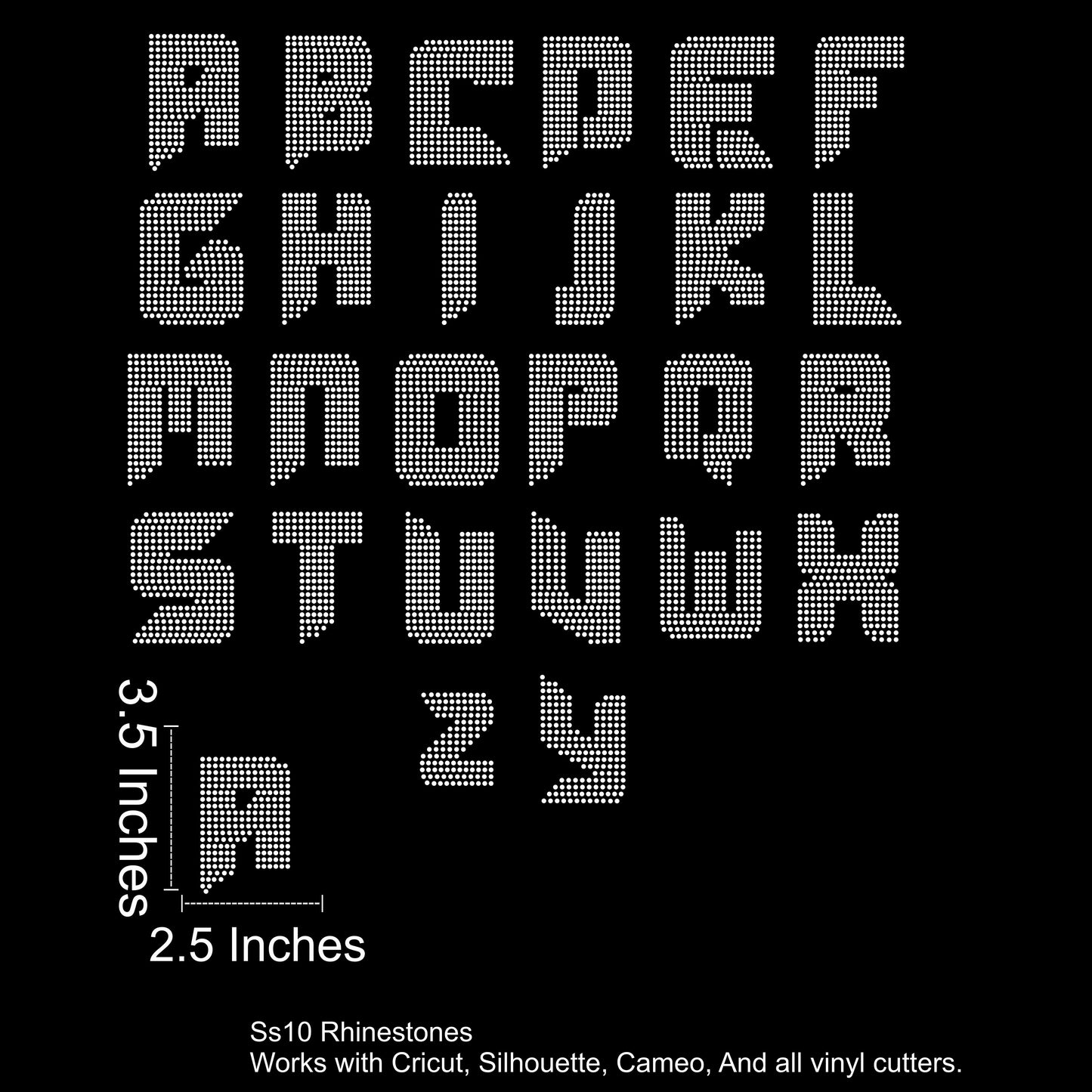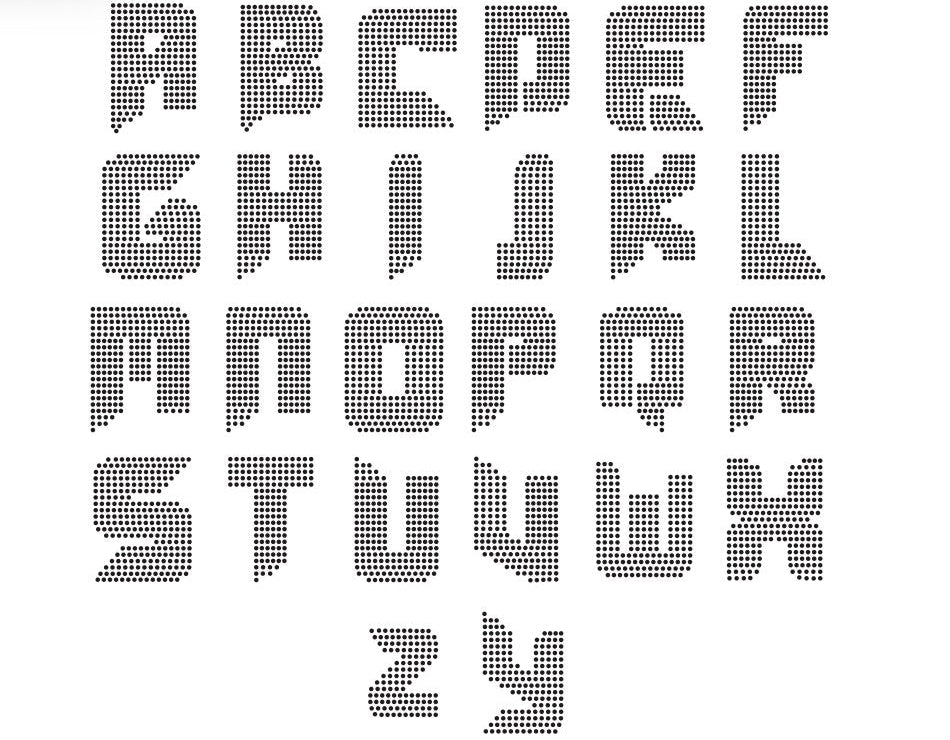
Stellar Font Rhinestone SVG File 3.5 Inches Tall
Stellar – Rhinestone Font SVG (SS10 Size Compatible)
Give your designs a clean, futuristic edge with Stellar, a bold and spaced-out font made to shine. Each letter stands at 3.5 inches tall and is perfectly sized for SS10 rhinestones, giving you a smooth, easy cut every time.
• Letters A–Z
• Approx. 3.5 inches tall
• Designed for SS10 hotfix rhinestones